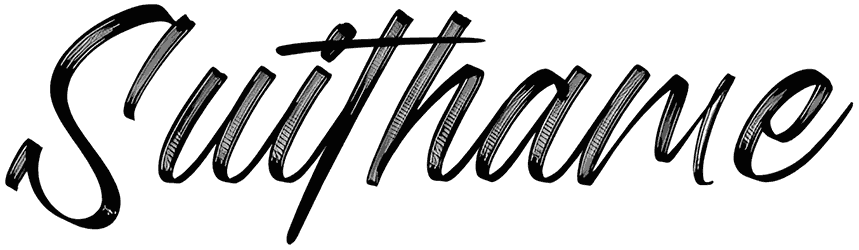
Suithame Font
With this realistic brush font, you can create a cool urban layout, such as a business card for a tattoo artist or anything else. The Suithame font comes in full coverage of characters, and you can set it for different projects. You can create a summer party flyer and give it a modern and natural mood.